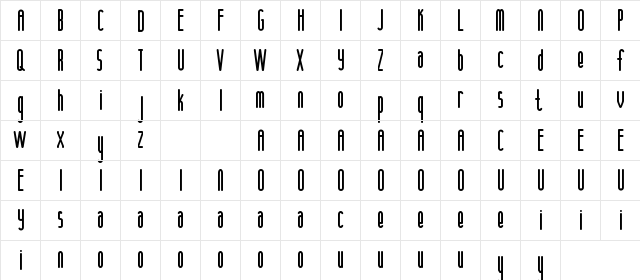
Anamelia Demo Rounded Regular
Design Context for Anamelia Demo Rounded Typeface
Anamelia Demo Rounded uses gentle rounded endings to create a warm, inviting typographic personality — less corporate than geometric sans, more refined than playful display fonts.
A natural fit for tech startups, health and wellness brands, children's products, and friendly consumer apps.
Font Pairing: Pairs well with a rounded or humanist sans for body copy, maintaining the friendly tone without relying on Anamelia Demo Rounded to carry extended reading.
Pro Tip: Pair Anamelia Demo Rounded with a geometric sans for a balanced system — the rounded softness works as a warm counterpoint to harder-edged companions.